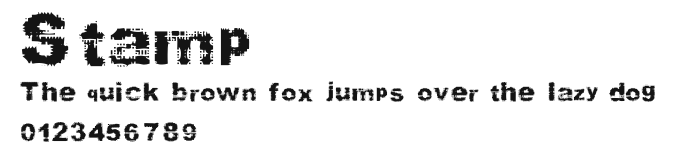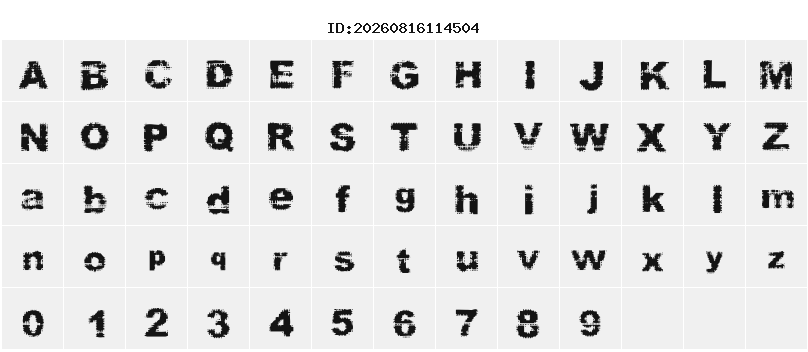
• Font Name: Stamp
• Font ID: Stamp
• Full Font Name: Stamp
• Version: 1.0 Tue Apr 01 11:40:26 1997
• PostScript Name: Stamp
• Character Count: 80
About Stamp.ttf
Stamp.ttf is a modern, elegant sans-serif font designed for ultimate readability and visual harmony. Perfect for branding, headlines, web design, and print materials.